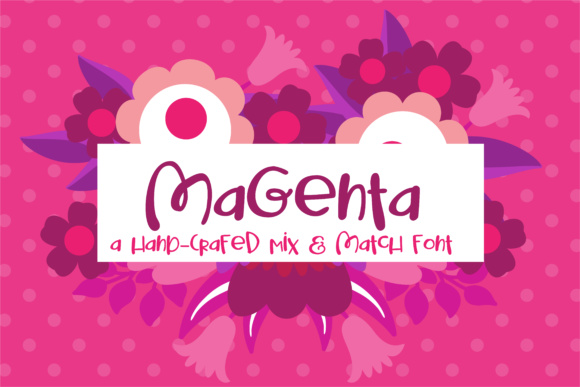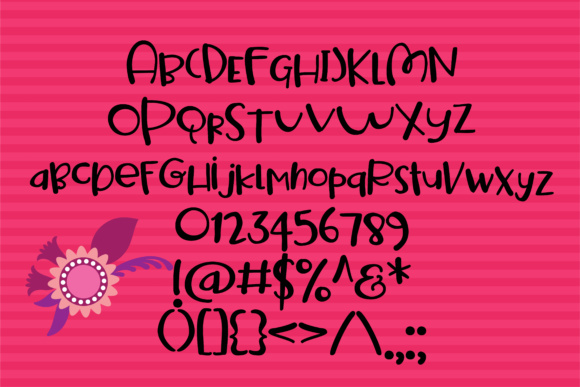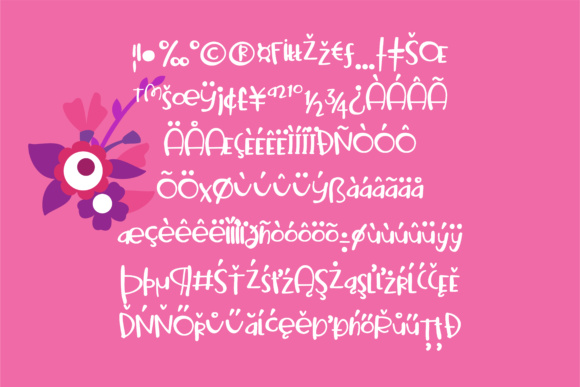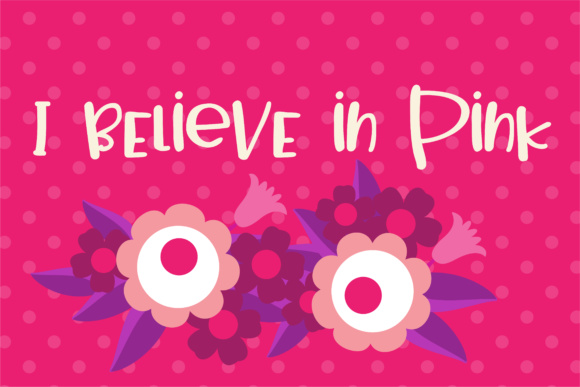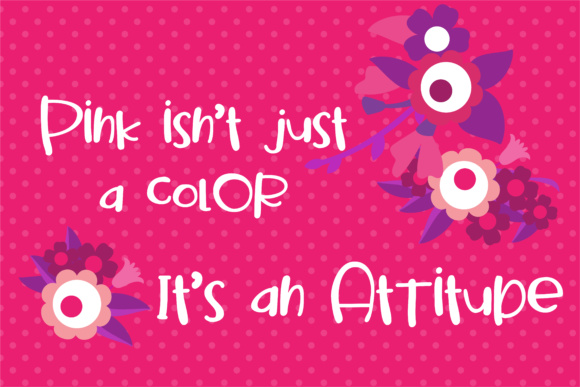
Magenta Font
About Magenta Font
Magenta is a gorgeous, handcrafted script font that can add a girly and stylish appeal to your works. This font has two cases that can be used interchangeably for creative, hand-lettered looks.